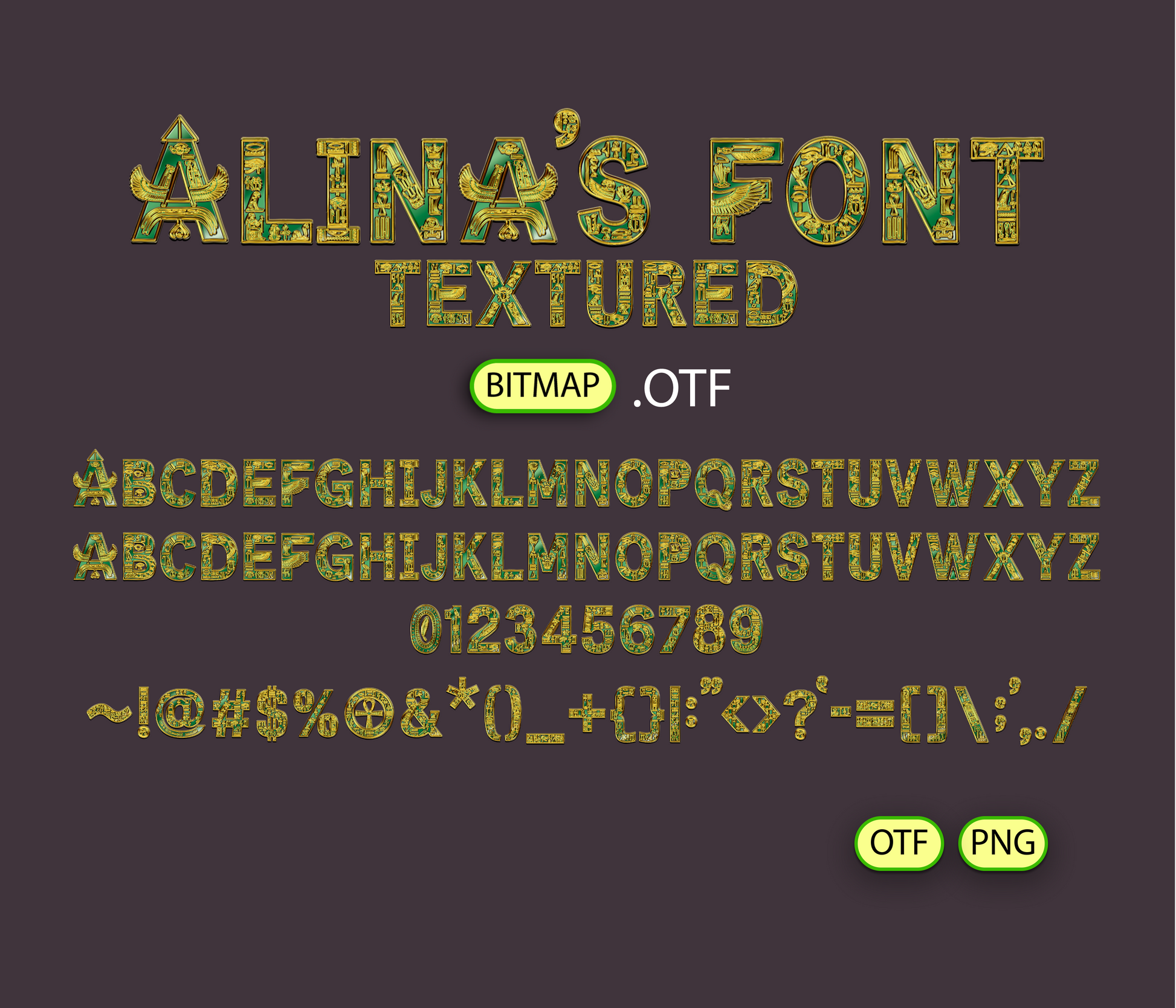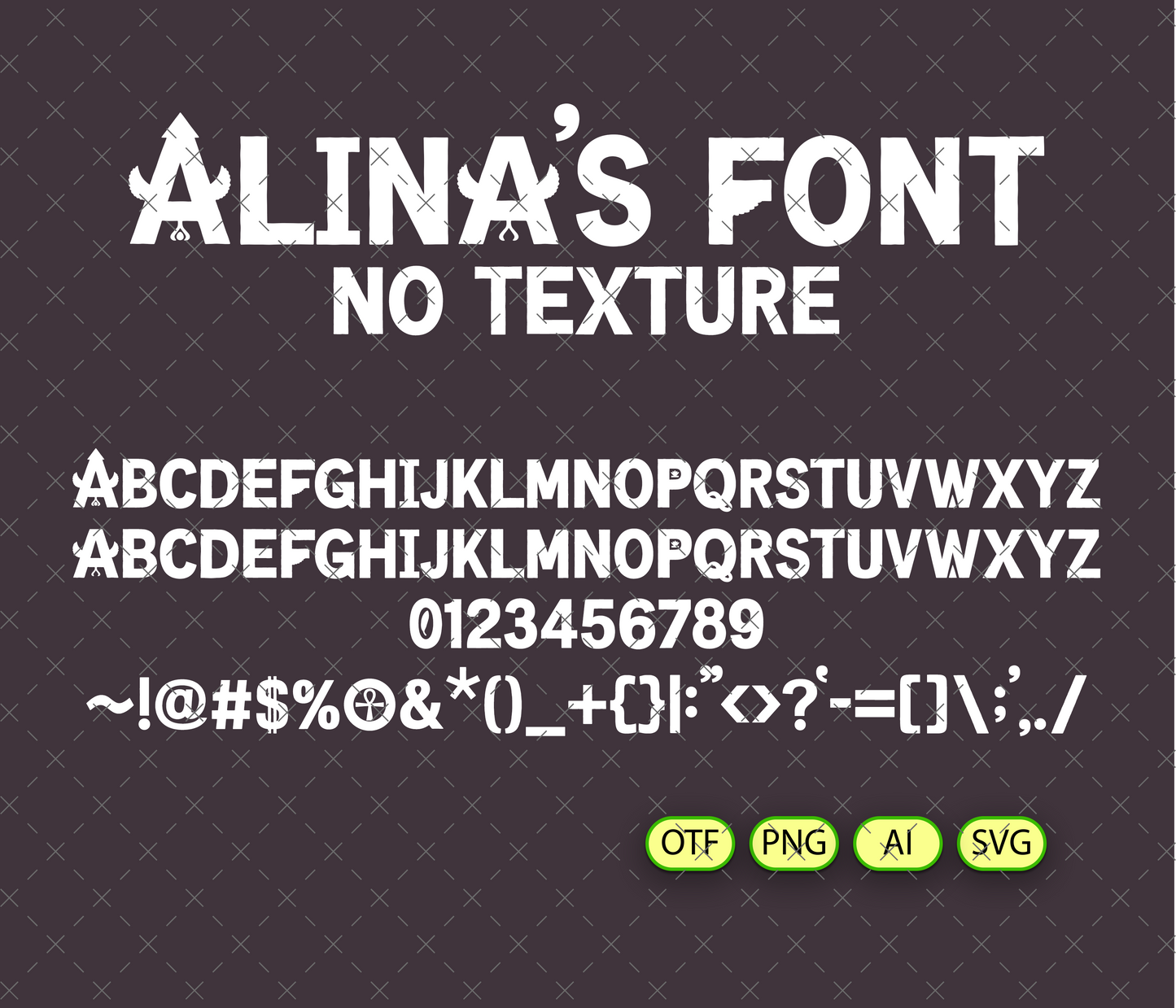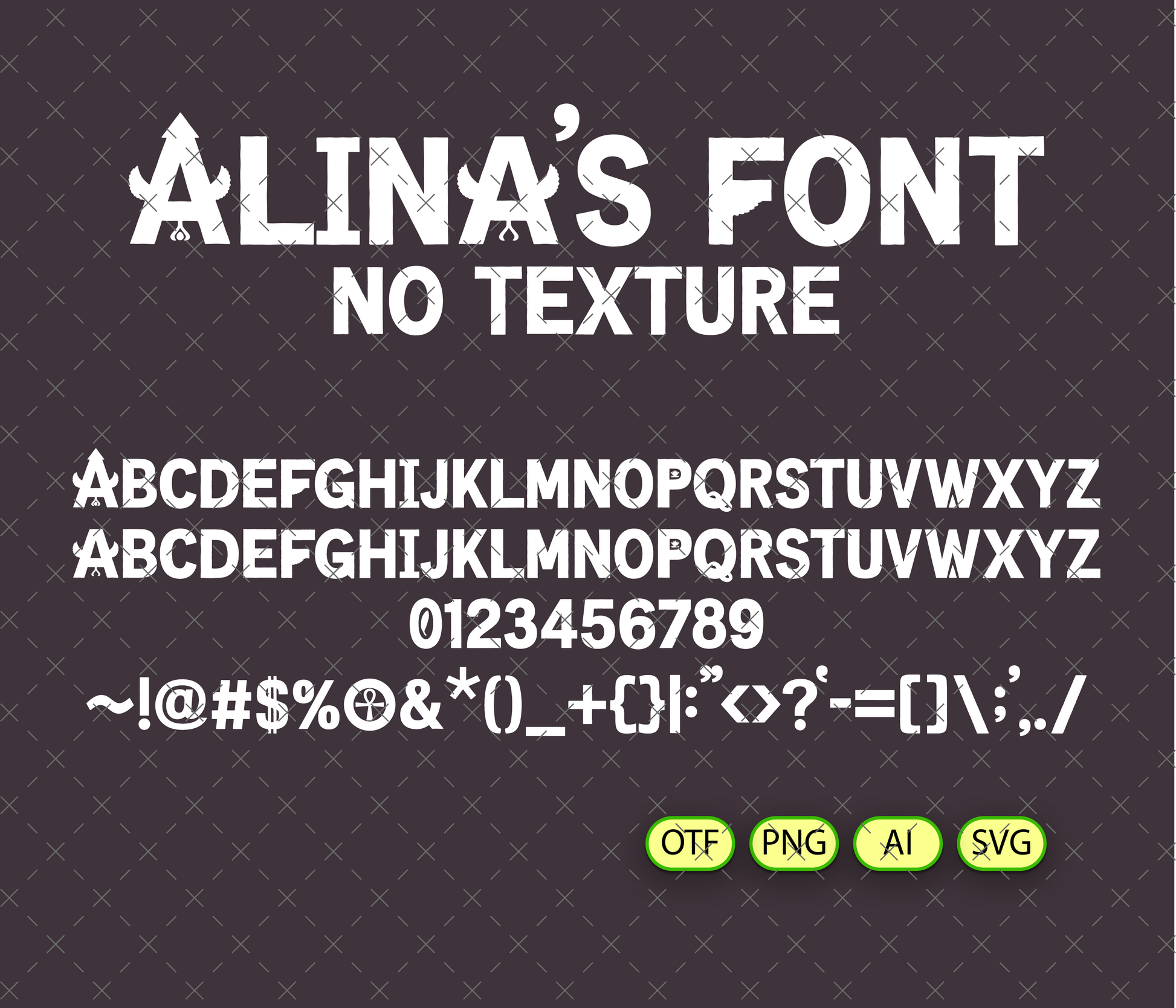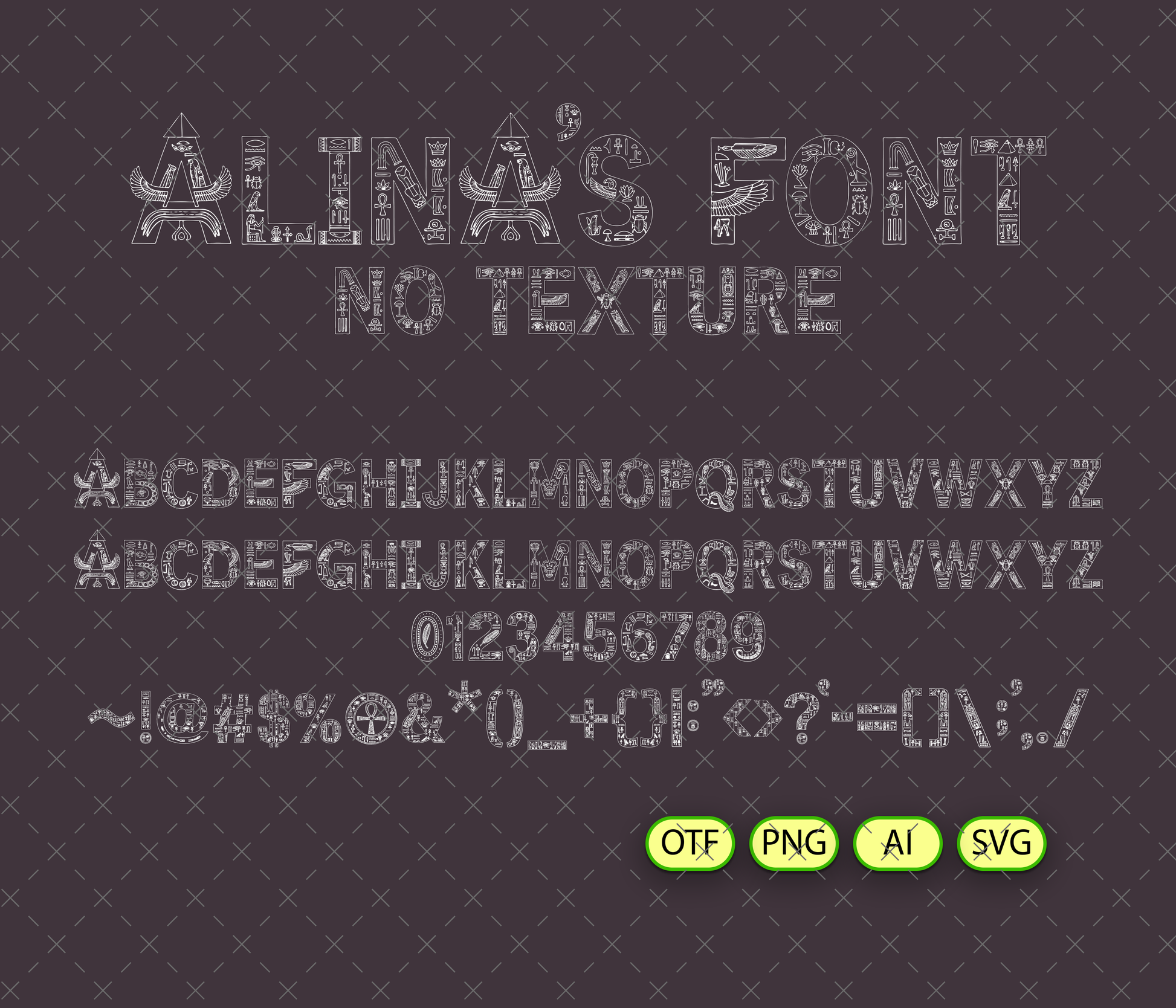
Nile Empire Font Textured
Dive into the breathtaking universe of ancient riverside kingdoms with our Nile Empire Font Textured, capturing the essence of hieroglyph-etched splendor and monument-era mystique. Perfect for history enthusiasts, themed event planners, content creators, and creative professionals, this font brings the bold, timeless spirit of mighty conqueror stories to your projects. Create eye-catching invitations, merchandise, or digital content with the dramatic energy of sacred burial chamber narratives.
Commanding Typography for Antique Design & Cultural Projects
Our Nile Empire Font Textured features bold, intricately styled letterforms with ancient riverside stone textures reflecting the world of conquering emperors and sacred obelisk settings.
- Event Promotions: Produce captivating invitations, posters, and banners for antiquity exhibitions, cultural conventions, and gatherings that embody the spirit of ancient imperial entertainment
- Merchandise Design: Outstanding for t-shirts, posters, stickers, and accessories that reflect the majestic aesthetic of ancient conqueror culture themes
- Digital Media: Revolutionize websites, blogs, and social media with authoritative headers and graphics that radiate the grandeur of timeless civilizations
- Creative Content: Weave genuine authenticity into historical artwork, educational designs, and creative projects inspired by sacred riverside empire tales
- Personal Projects: Unleash ancient energy into scrapbooking, DIY crafts, and home decor inspired by the world of legendary emperor characters
Many seek an online font generator to reproduce the appearance of the Nile Empire Font. Resist the urge! No generator can come close to the superiority of our font, which comes in a clean outline version perfect for cutting machines.
Our font glorifies the world of ancient civilization stories and riverside monument discovery, empowering your projects with its bold and timeless spirit. Whether crafting educational materials, designing themed products, or adding a historical touch to personal projects, this font communicates the vibrant essence of imperial dynastic conquest. Ready to channel ancient mystique into your creations? This font is your definitive solution for eye-catching, impactful design.